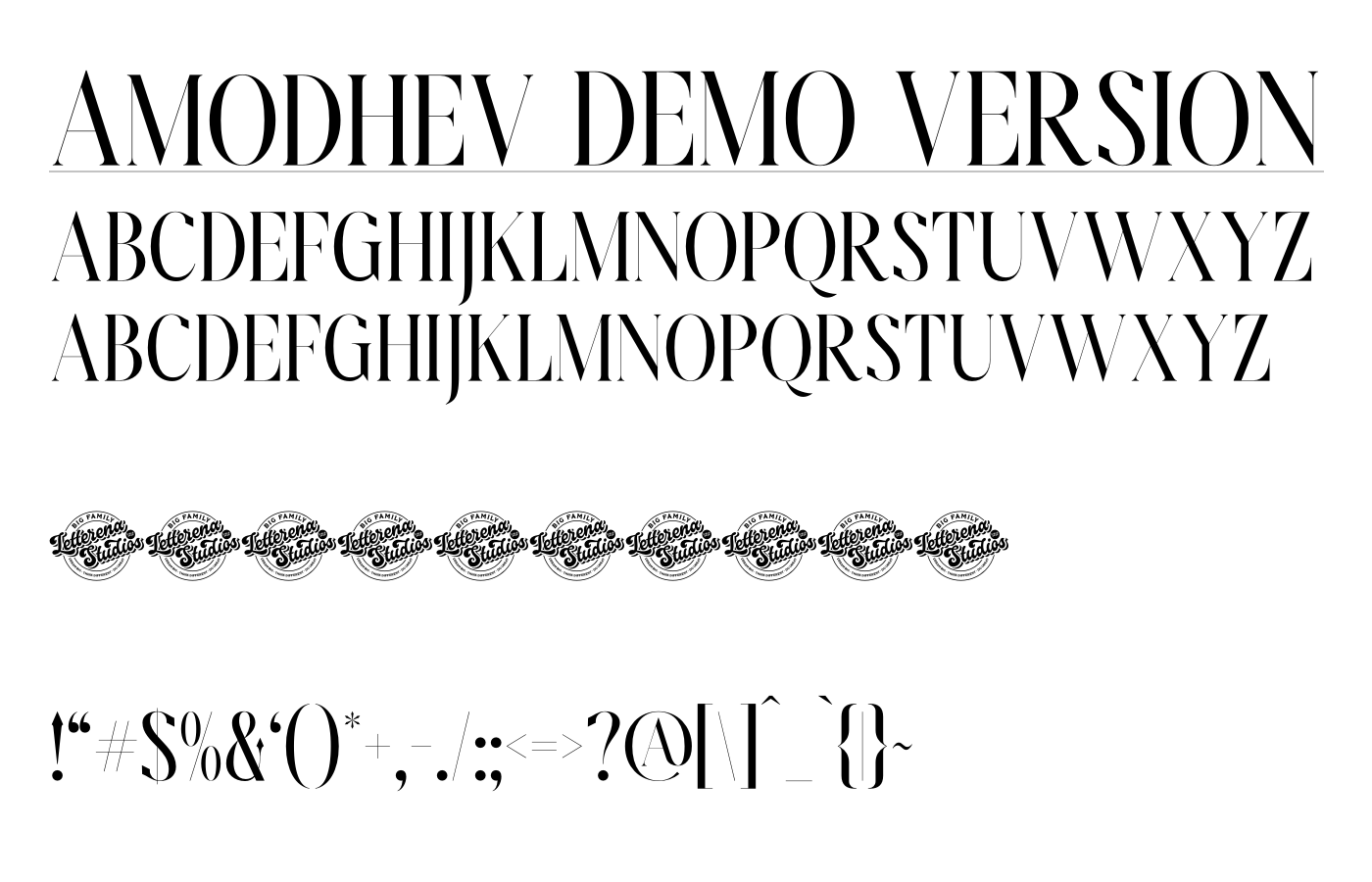
Amodhev DEMO VERSION is a sleek, high-contrast serif font with an elegant and modern feel. Its tall, narrow letterforms and sharp serifs give it a refined and sophisticated appearance, making it perfect for luxury branding, editorial headlines, and stylish packaging. This font works best where a dramatic, upscale look is desired, adding a touch of timeless class to any design.
Amodhev DEMO VERSION Font
About Amodhev DEMO VERSION Font
| Font family | Amodhev DEMO VERSION Font |